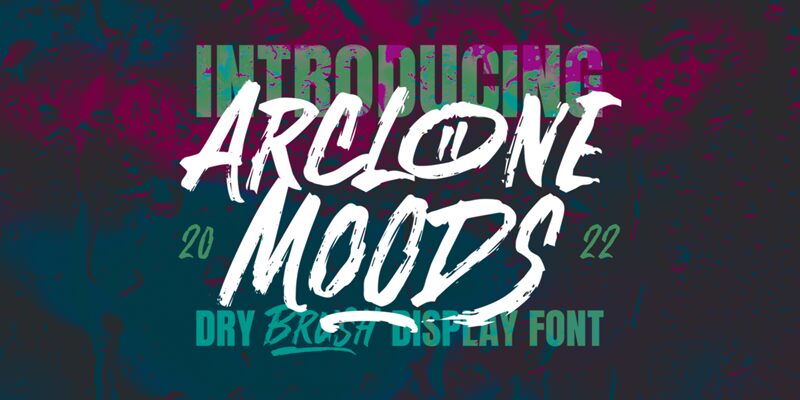
Arclone Moods, a creation of Letterhend Studio, is a brush font that boasts an artistic flair with its condensed form, evoking a sense of tailored elegance. The deliberate strokes and the dynamic flow lend it a handmade quality that captures the whimsy and expressiveness of traditional brushwork. Its aesthetic appeal lies in the balance between its assertive presence and the intimate feel it brings to each character.
The font's condensed style makes it an excellent choice for impactful headlines and branding where space is at a premium but expression can't be compromised. It's also well-suited for artistic projects, like book covers or music albums, where personality is paramount. Arclone Moods transcends mere text; it infuses projects with emotion and character, making every word count in visual storytelling.